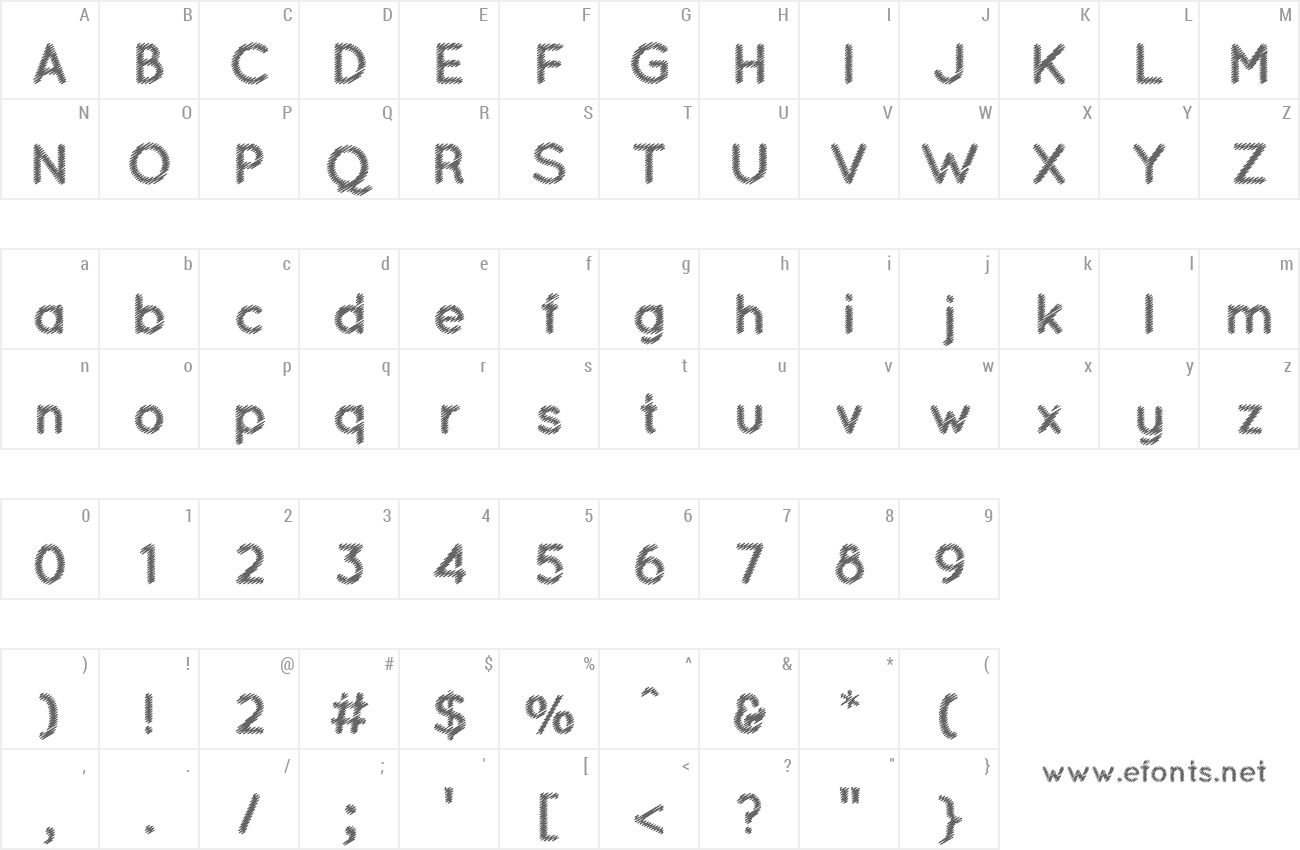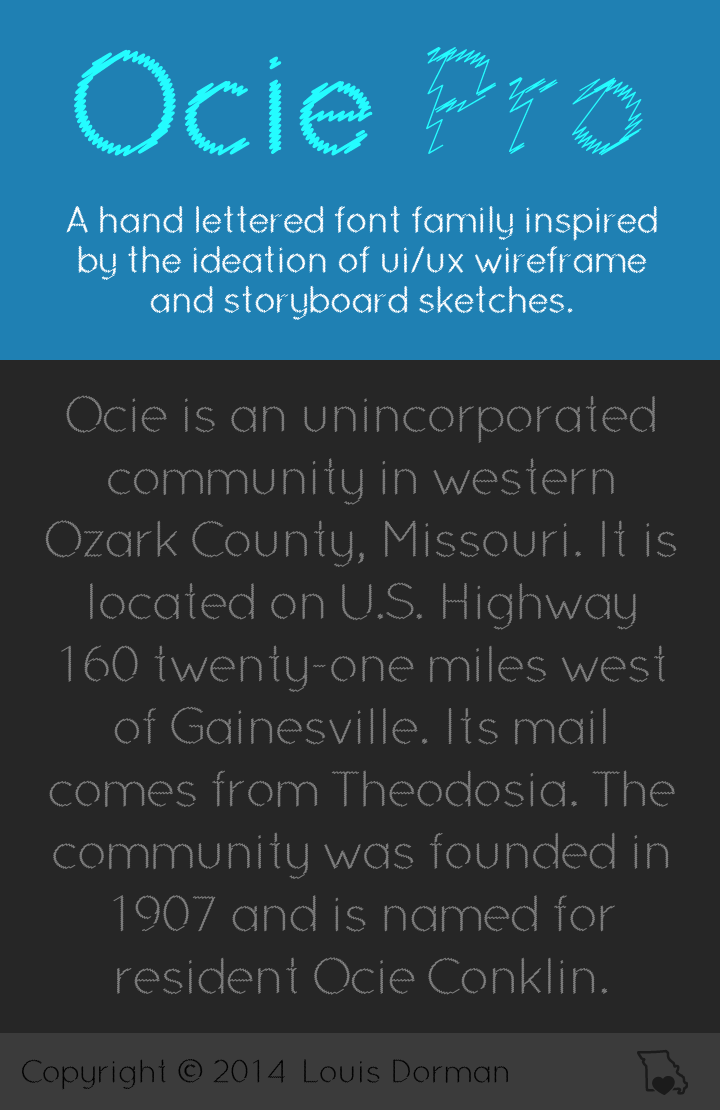
| Font name: | Ocie |
| Author: | Louis Dorman |
| Note by Louis Dorman | |
| A hand lettered font family inspired by the ideation of ui/ux wireframe and storyboard sketches. |